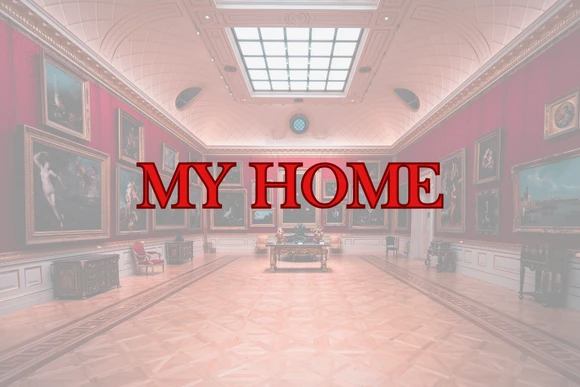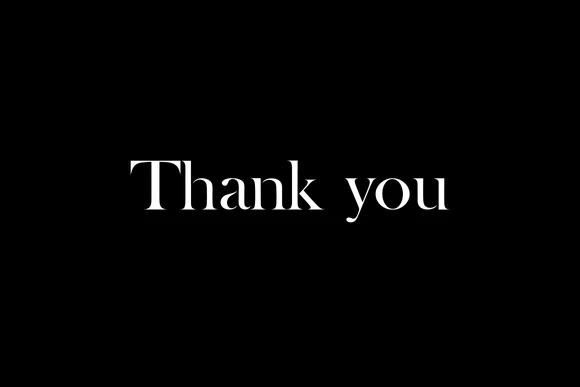
Celebrate city energy and bold style with Welcome to Manchester Font ā a modern, urban display typeface inspired by the vibrant culture, music and architecture of Manchester. Its confident strokes and stylish letterforms make it perfect for headlines, signage, sports graphics and event promotions. Whether youāre designing for a club night, a festival, a football-themed campaign or simply want a strong city-inspired look, this font adds a striking, contemporary feel.
Use Welcome to Manchester Font for posters, banners, T-shirts, logos, website headers, packaging, merchandise and social media graphics. Its crisp edges and bold personality ensure your message stands out in print and digital projects alike.
Key Features:
Bold modern display style with urban inspiration
Uppercase & lowercase characters
Full set of numbers, punctuation & symbols
Multilingual support for extended Latin characters
Perfect for both print and digital uses
Ideal For:
City branding, sports clubs, festival posters, event promotions, apparel design, album covers, restaurant signage, packaging, logos, social media posts, travel blogs and marketing campaigns.